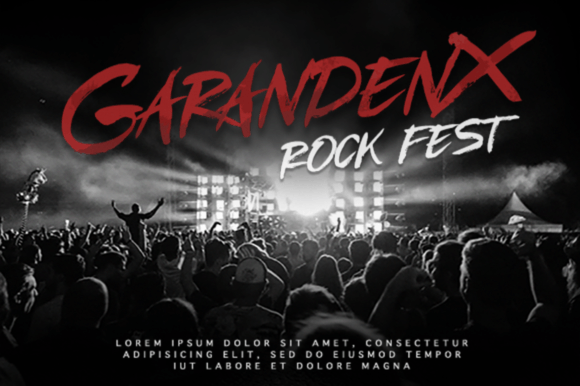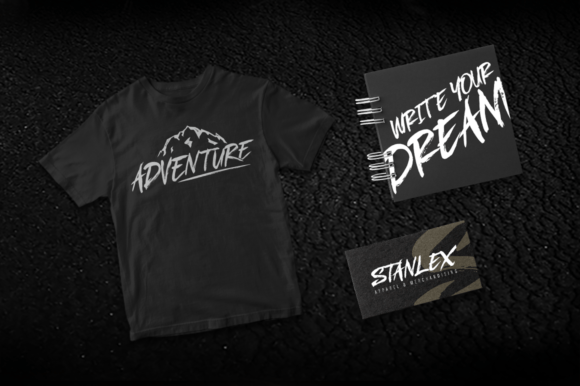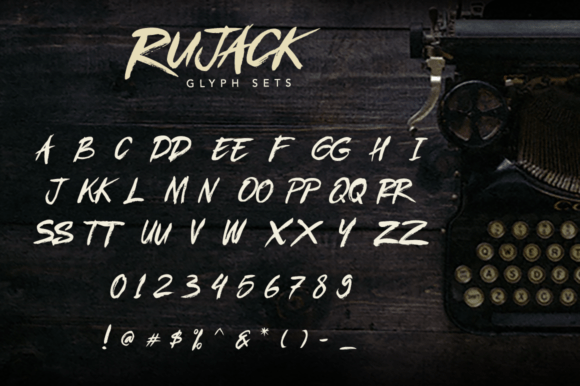
Introduction to Rujack Font
Rujack is both natural and exquisite, with organic strokes that mimic the texture and flow of a real brush.
The letters are well-designed, with a balance of thick and thin lines that create a sense of movement and energy Its elegant yet casual feel makes it perfect for designs with a laid-back and personal vibe, such as wedding invitations, book covers, and social media graphics.